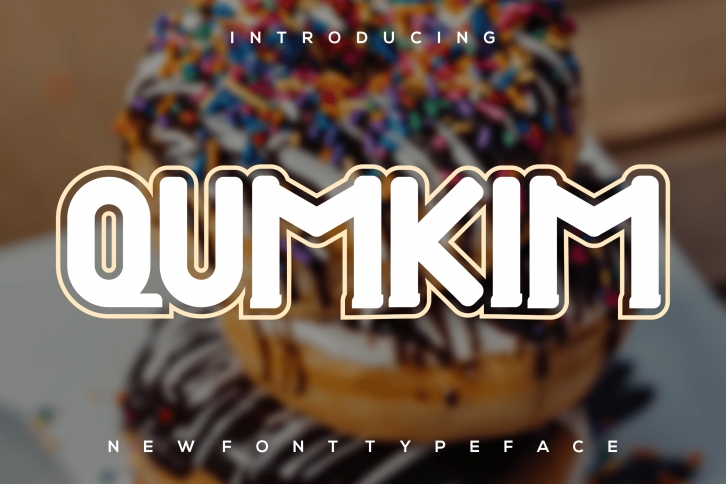
Qumkim is a fun and cool display font. Add it to each of your party invitation, swimming gathering or pretty much any design that requires a touch of youth and joy.